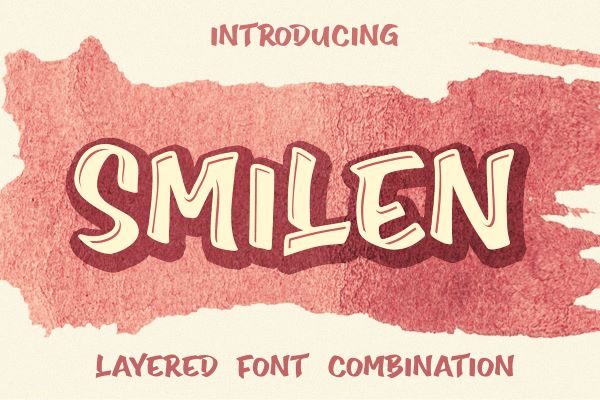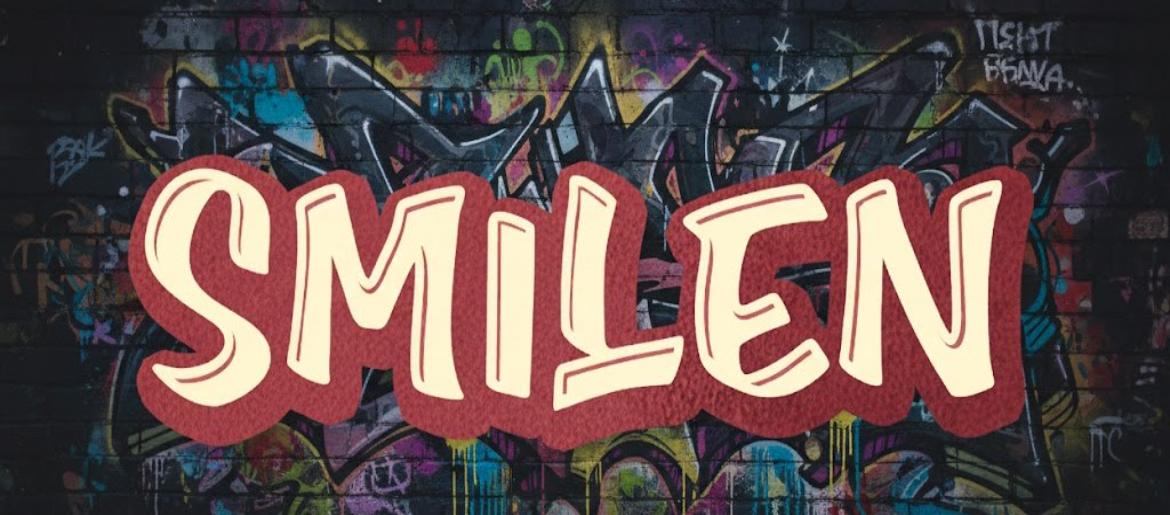
Smilen Font
Smilen Font is a graffiti-style typeface featuring energetic strokes and a playful urban attitude. Its expressive, street-inspired design makes it perfect for logos, posters, apparel, and creative projects that need a bold, fun, and modern graffiti look.
➤ Font Name: Smilen
➤ Designer: subectype & Orenari
➤ Style: Graffiti